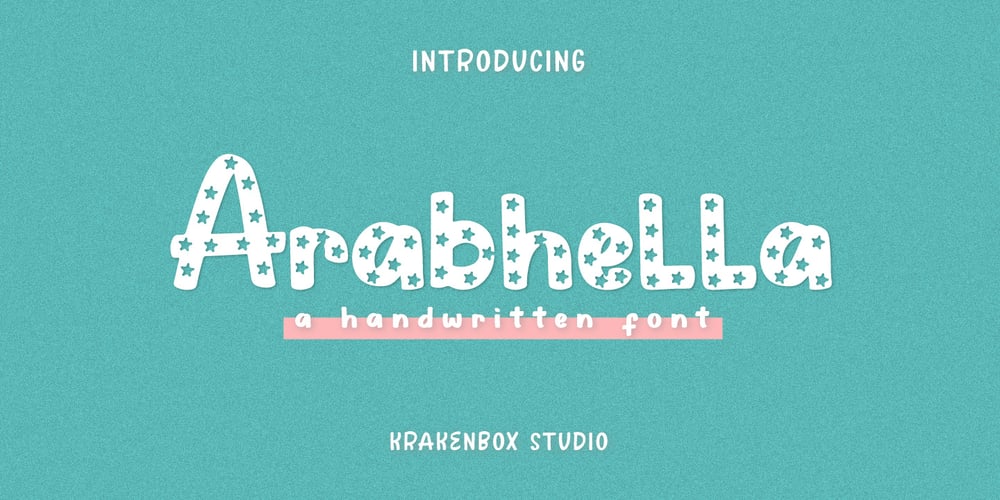
Arabhella Font Family was designed by Yahdi Kumala and published by Krakenbox Studio. Arabhella contains 1 styles and family package options. Arabhella is a cute and fun display and decorative font. Its cool, playful & childish look makes it a fantastic choice for fashion, signature, album covers logos, branding, magazines, social media posts, advertisement, and many more. Use this display font to add that special cool touch to any design idea you can think of!